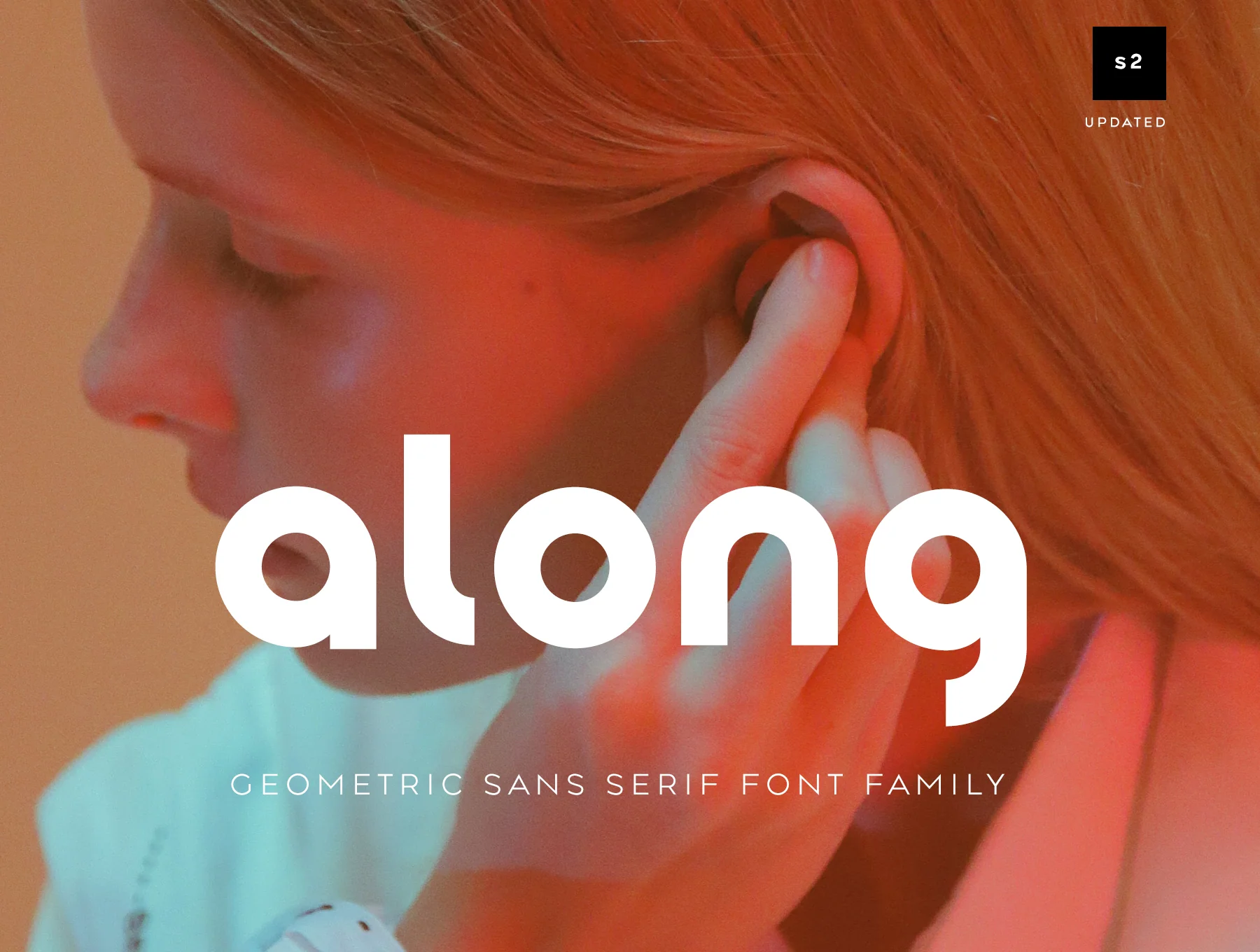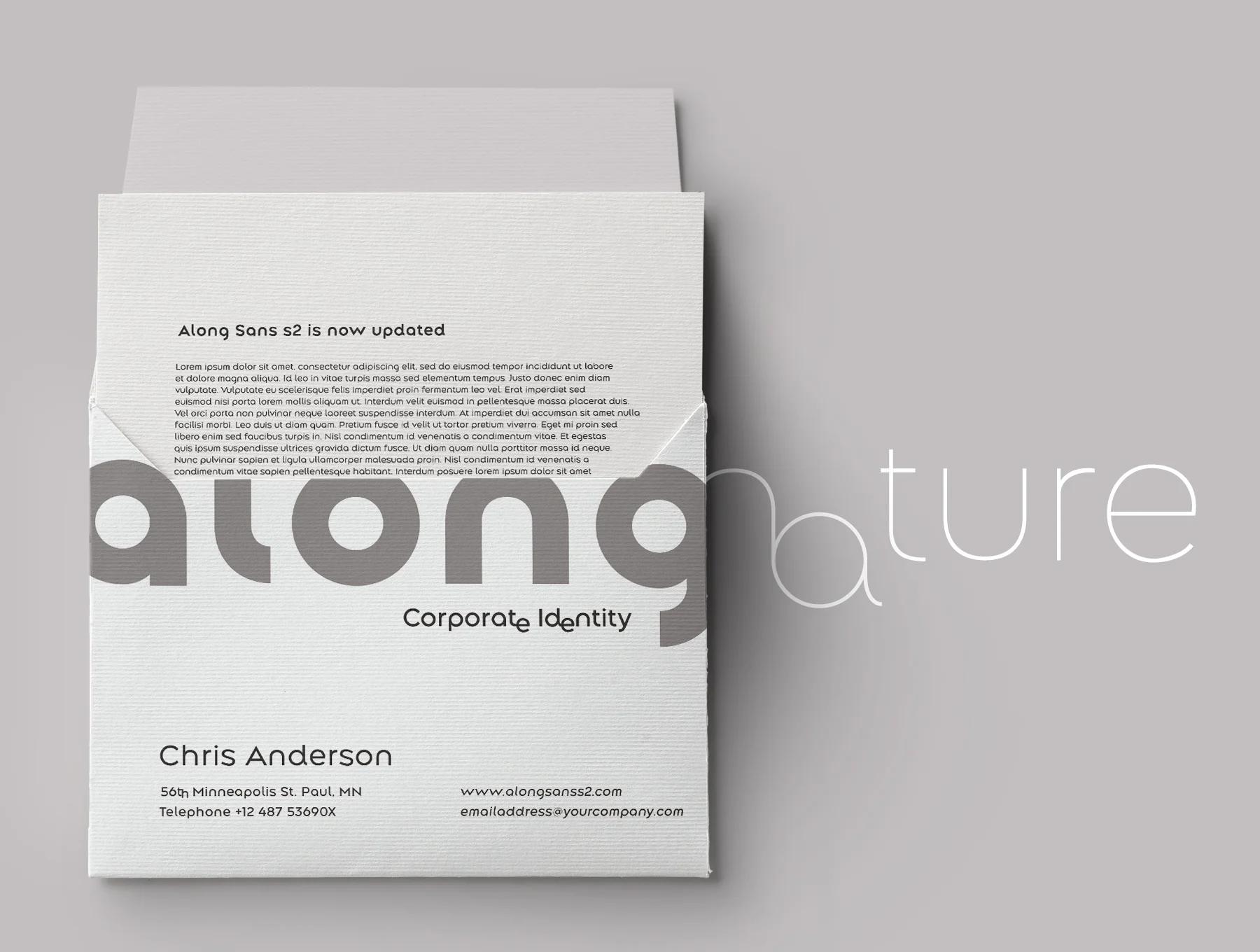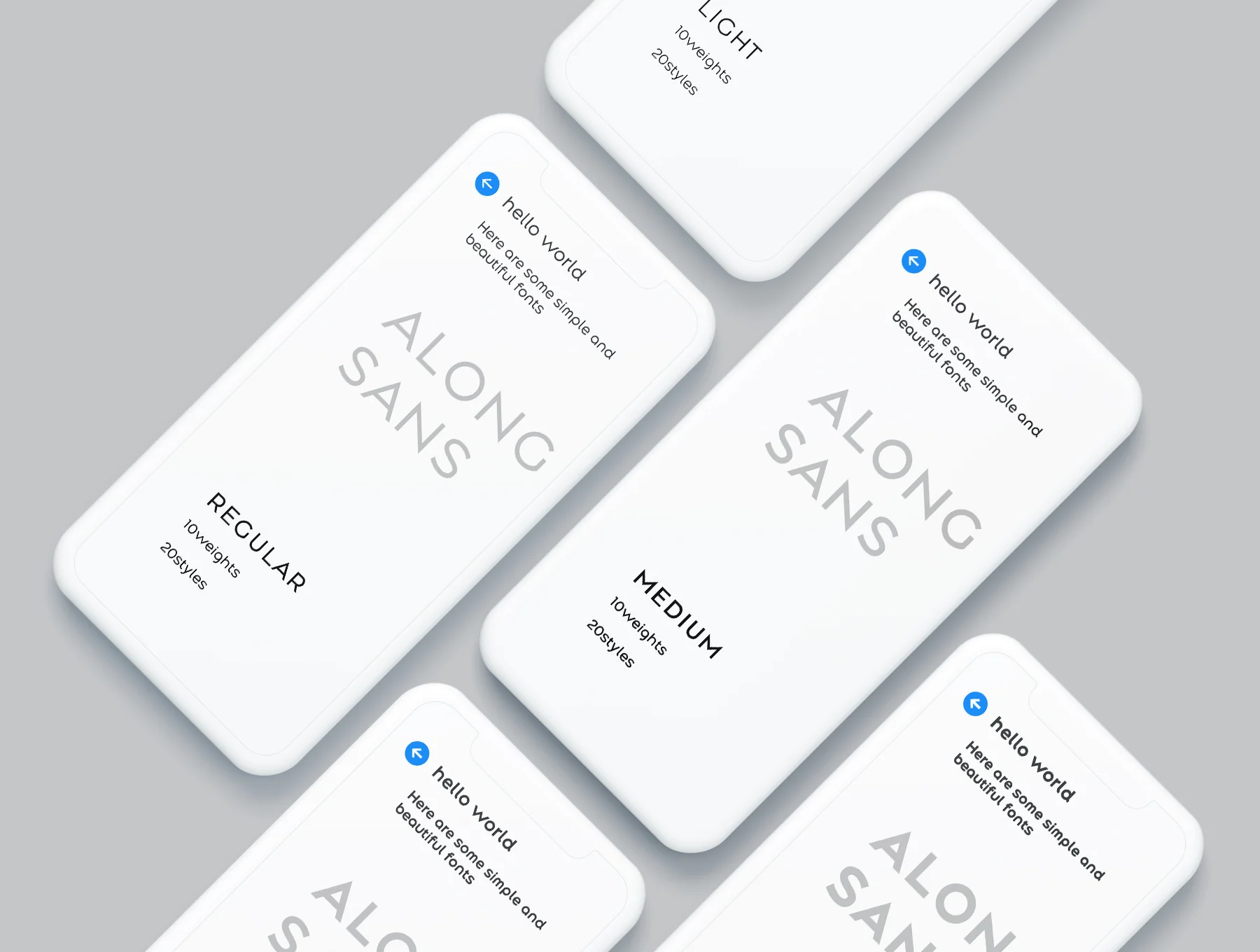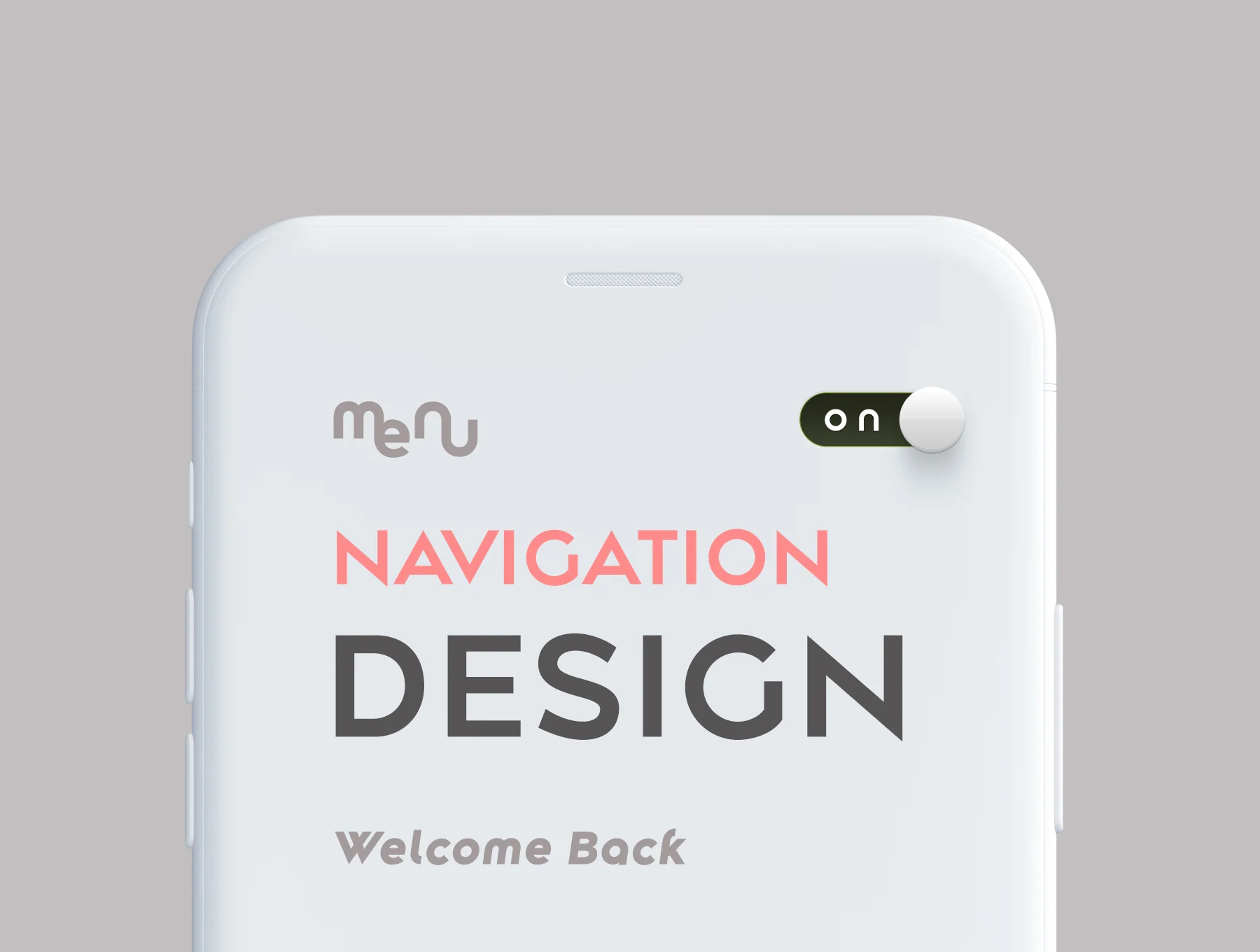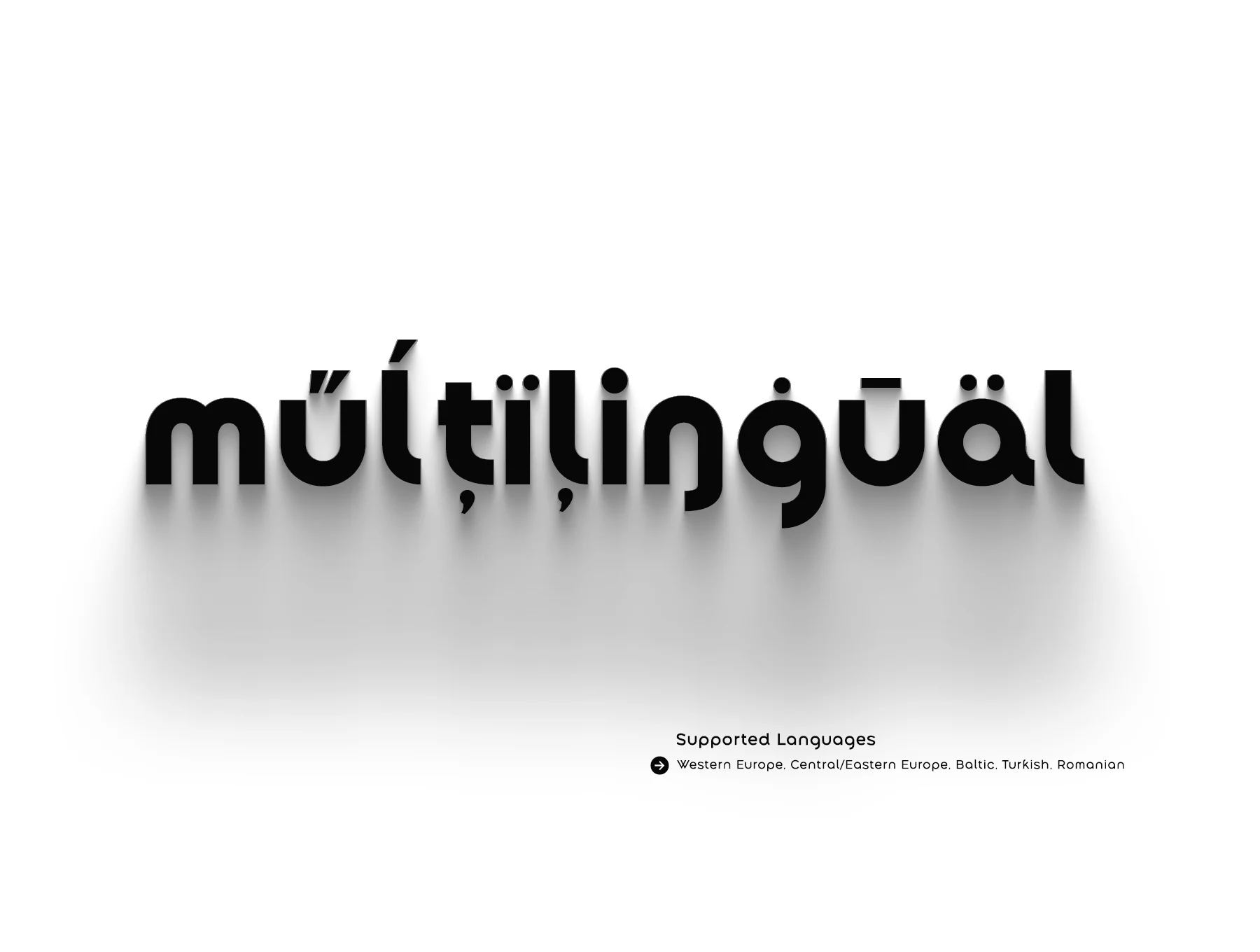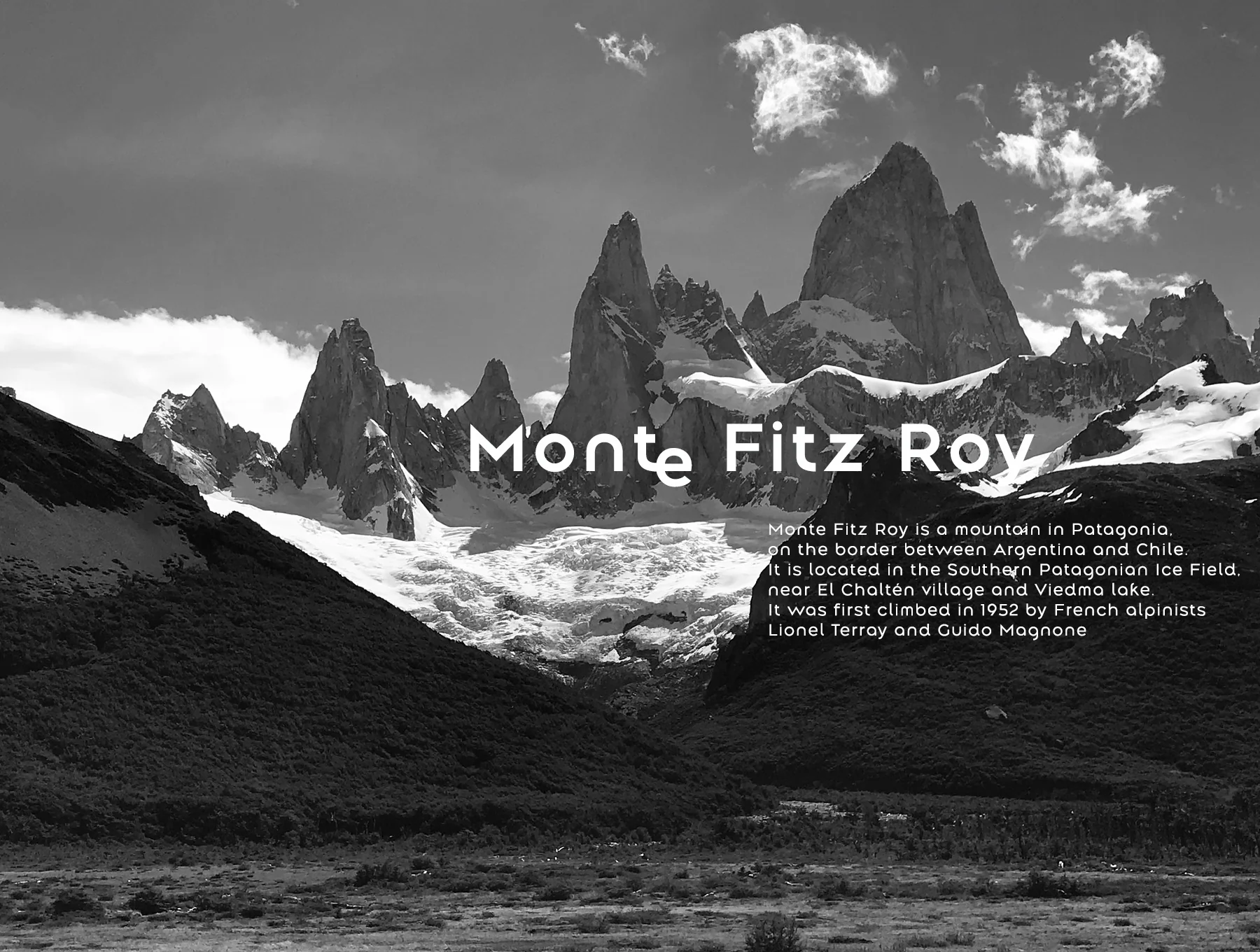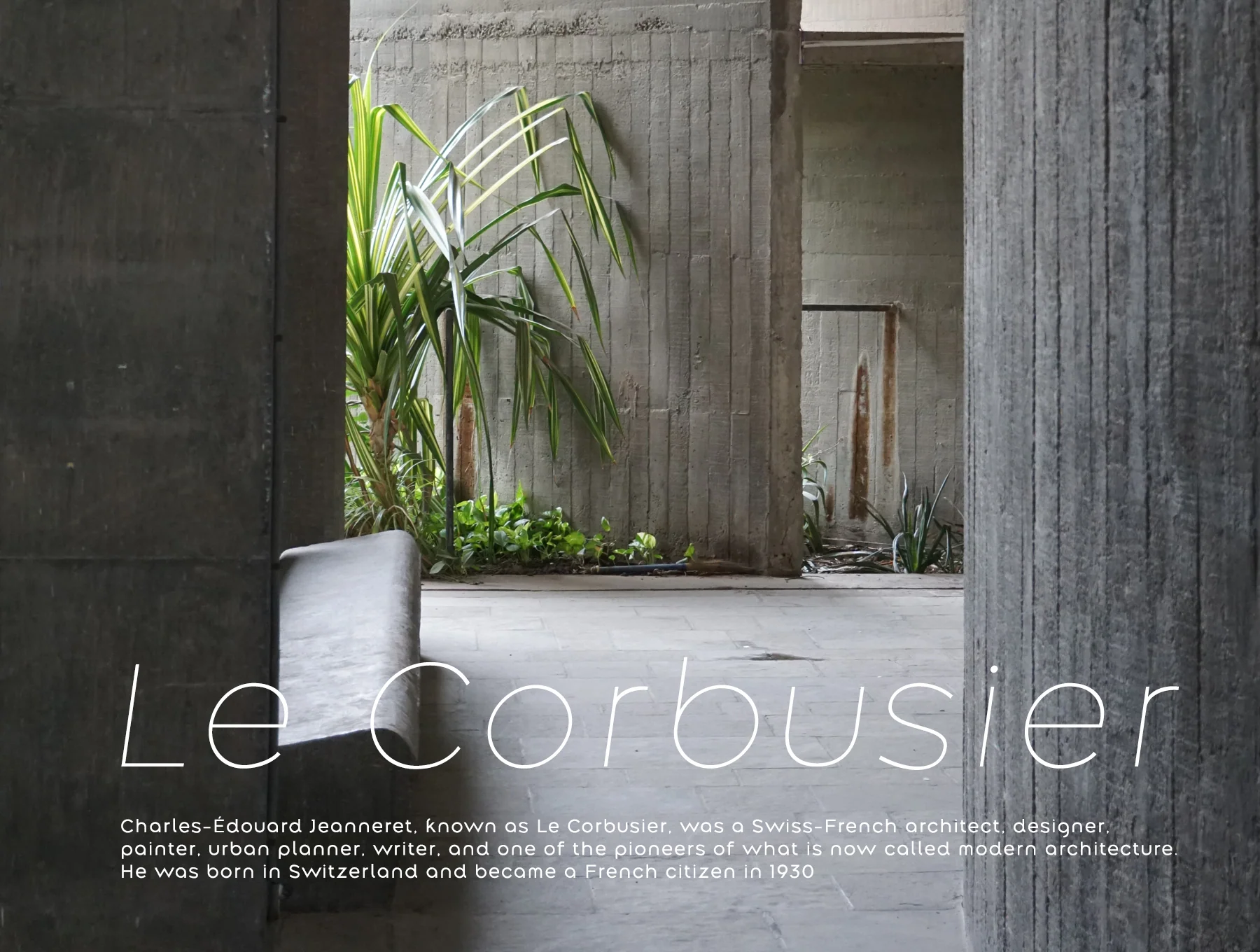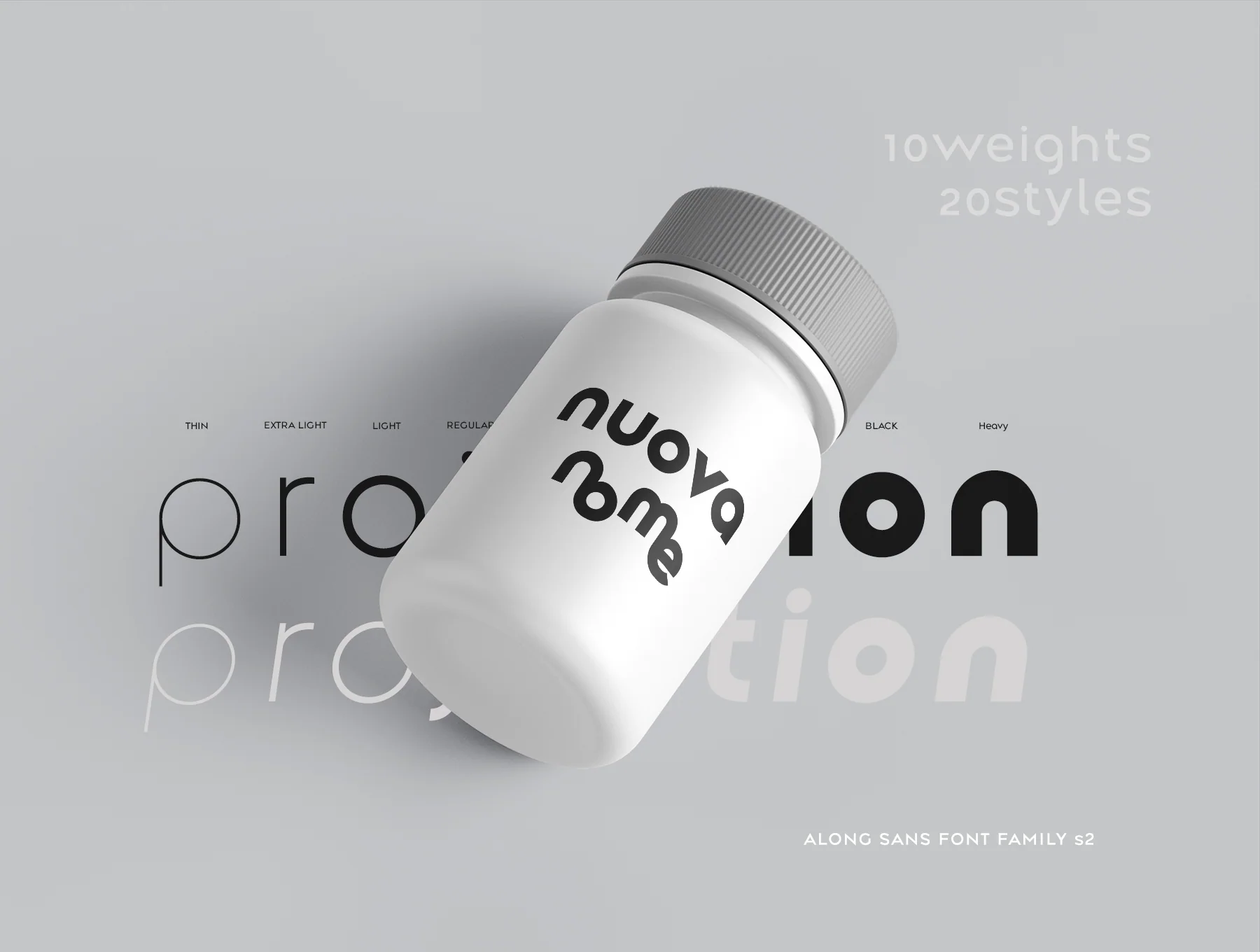
Along Sans Modern Geometric Font Family s2
Elegant contemporary geometric sans serif font refreshes
10 font weights with 20 style options
585 included characters
OpenType functions such as kerning, ligatures, aalt, ccmp, dnom, frac, salt, and ss01-ss05
Language coverage for Western Europe, Central/Eastern Europe, Baltic, Turkish, and Romanian
This release enhances glyph originality and refines kerning for better readability.
Ideal for crafting distinctive, elegant logos and heading styles, it helps make your design ideas more inspiring and impressive.